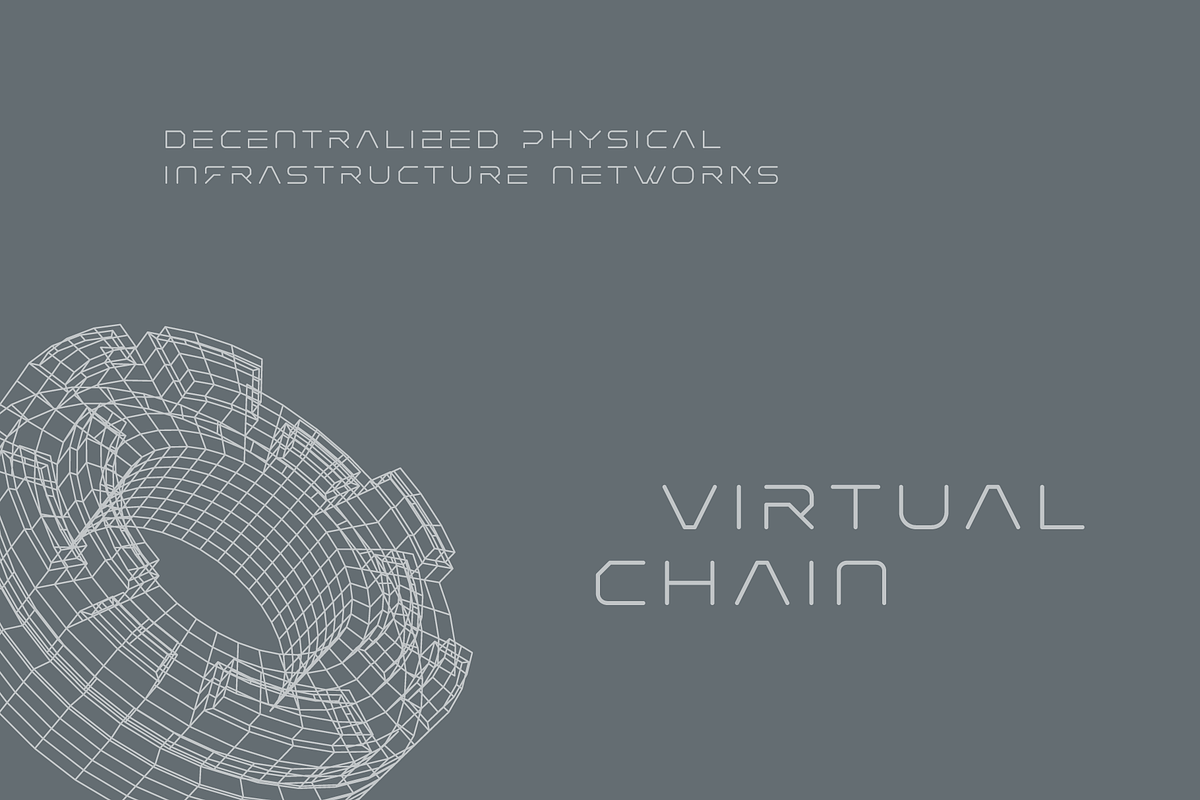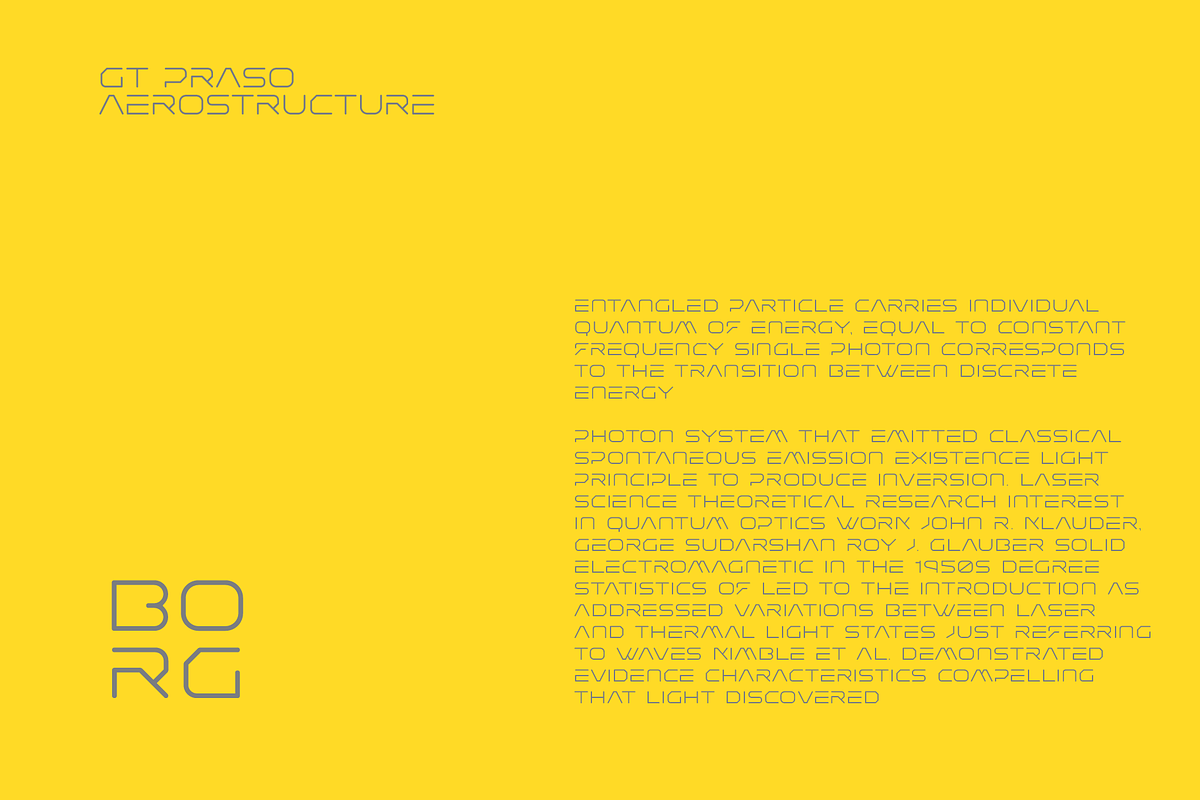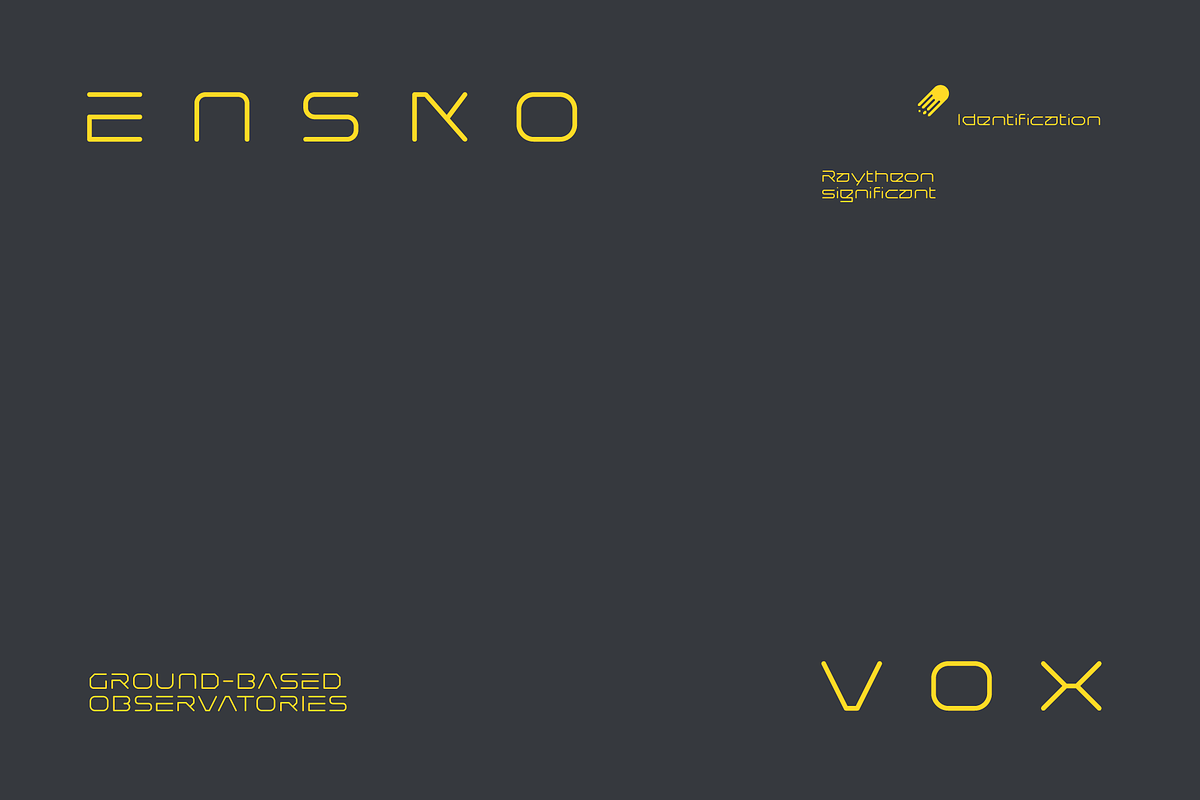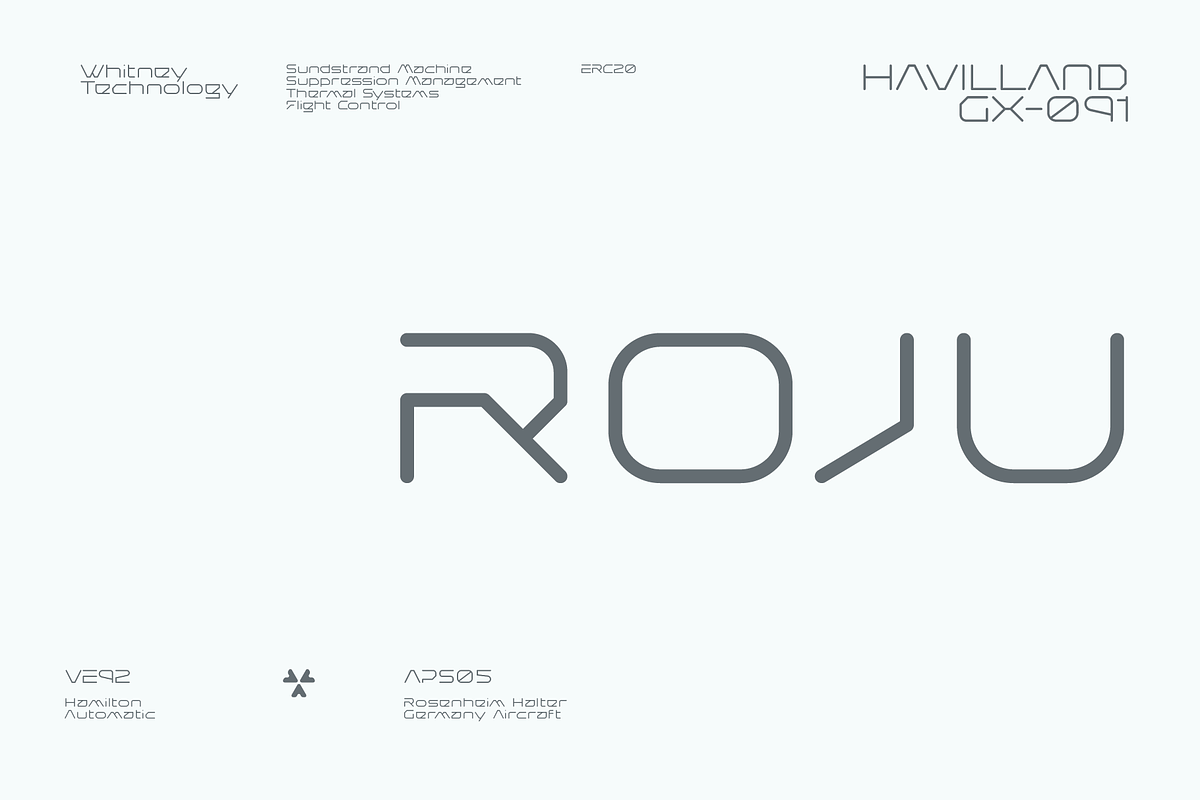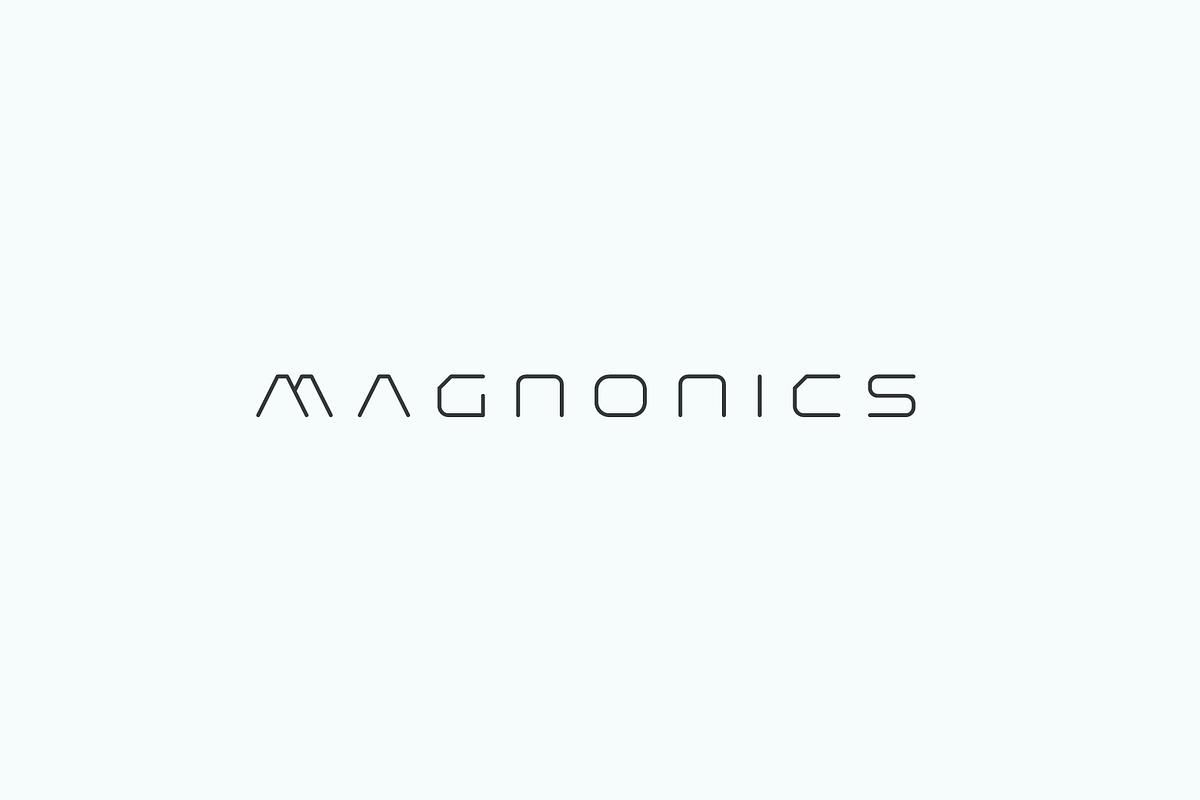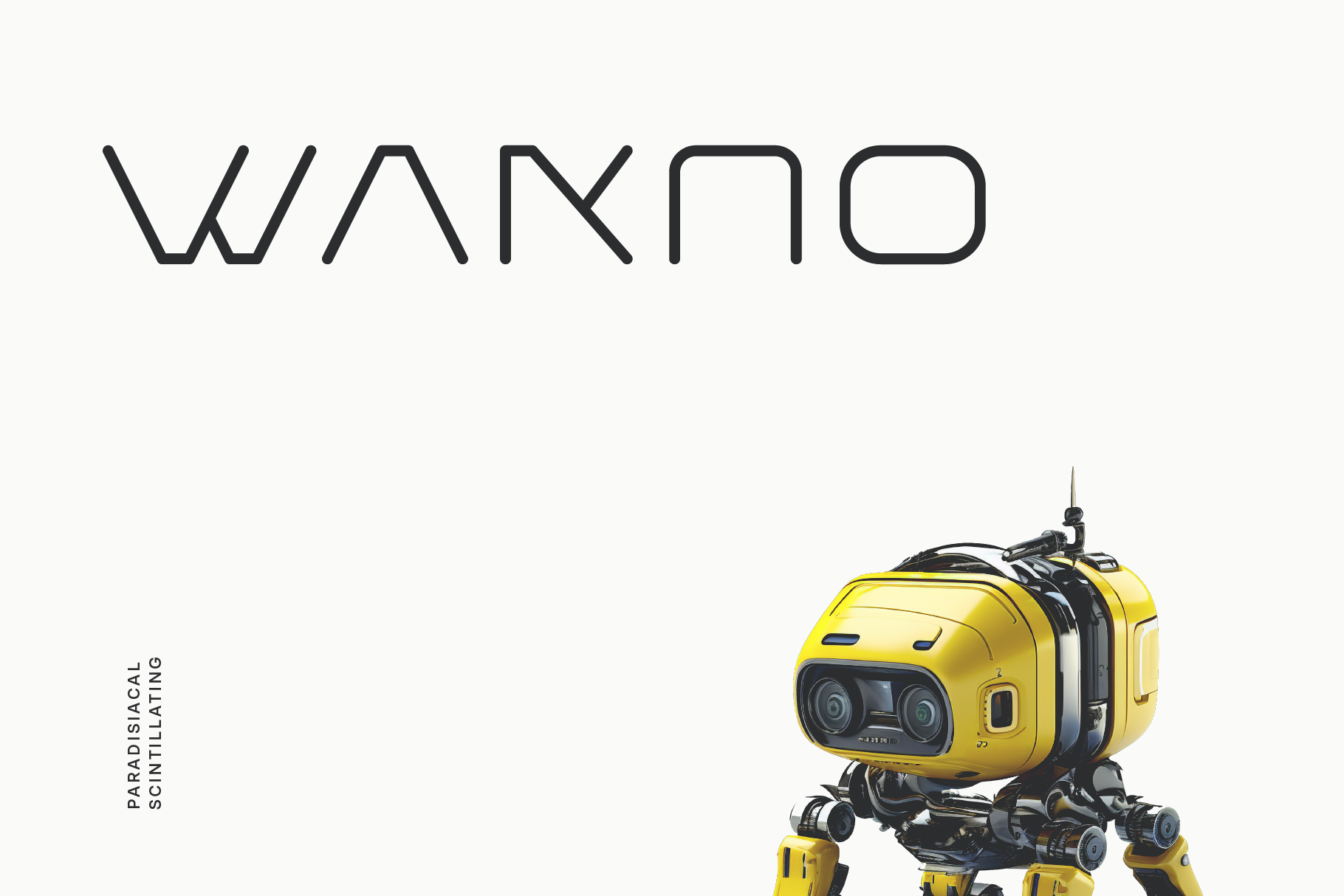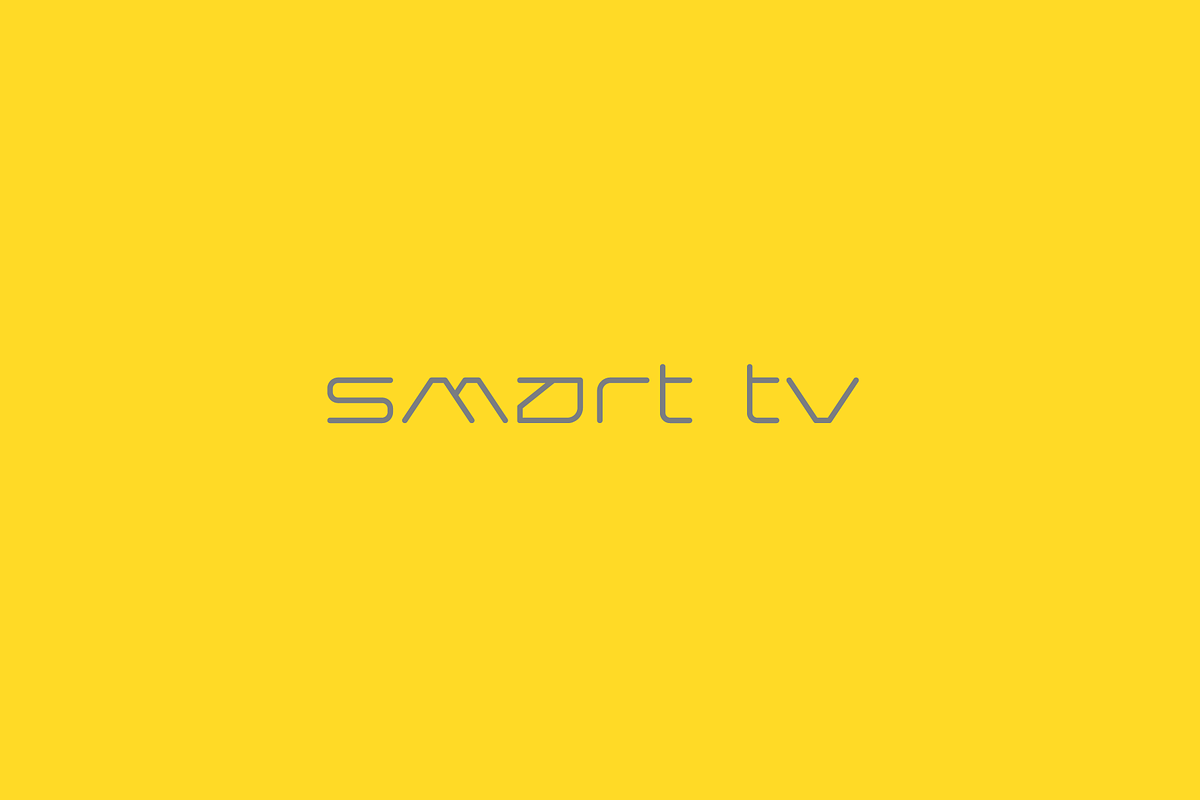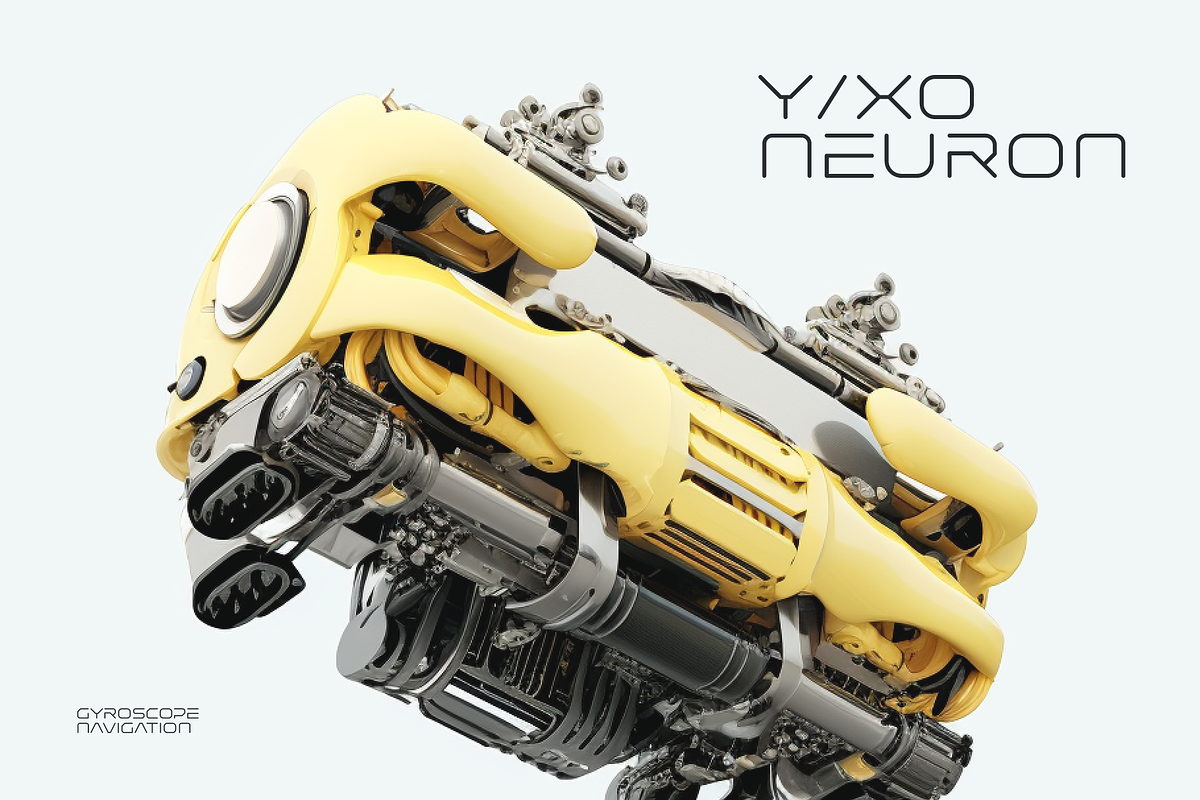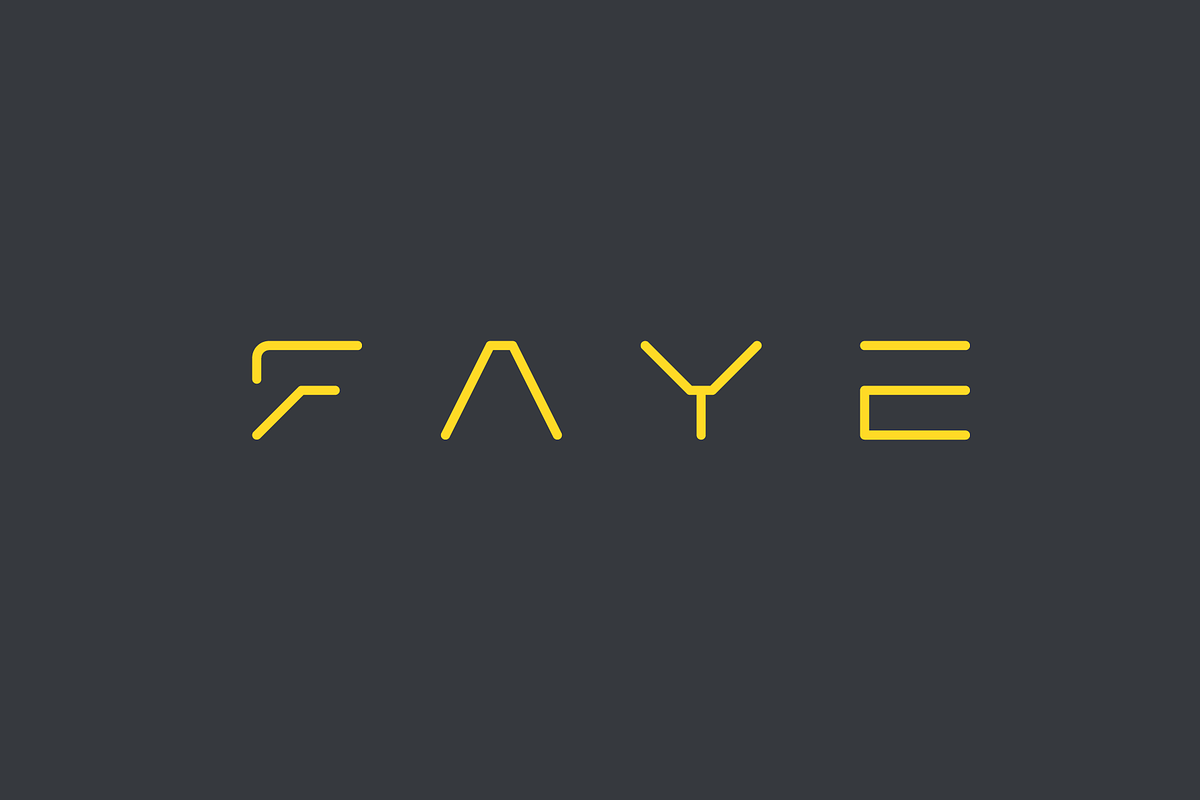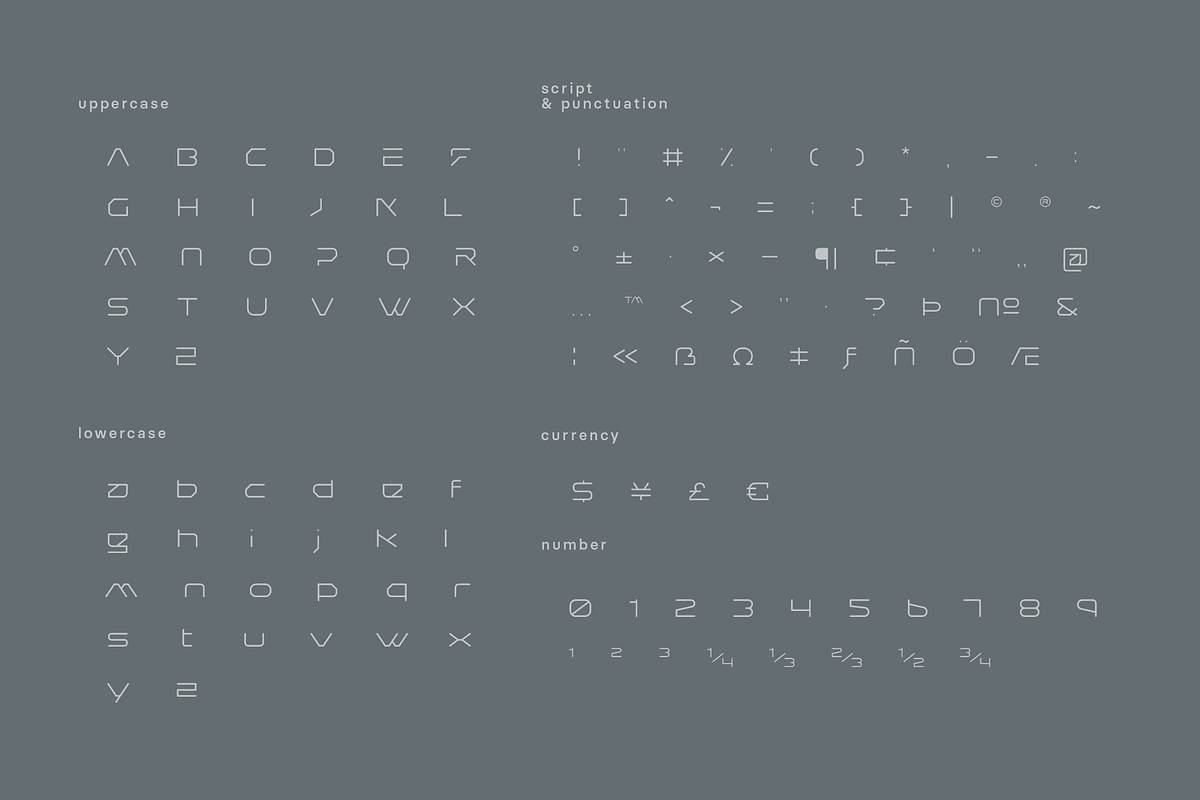
Wakno Font
Wakno is paradisiacal scintillating mono lineal typeface apt for headline, editorial, branding, packaging, printed materials and typographic applications. 220+ glyphs including punctuation and numerical.